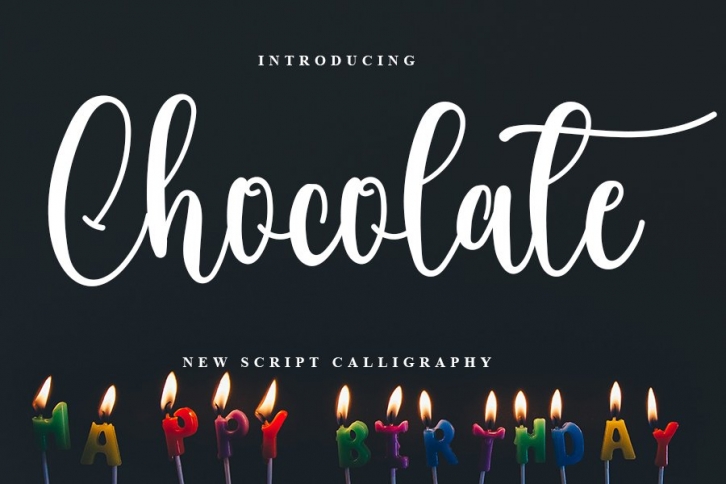
Chocolate is a gorgeous font that was realeased on October 27, 2021. The font can be used in many style contexts and design environments. Perfect for invitations, magazines, websites, logos, and more! It was designed by InermediaSTUDIO and the file size is 19.32 MB. Thanks for checking out this font!